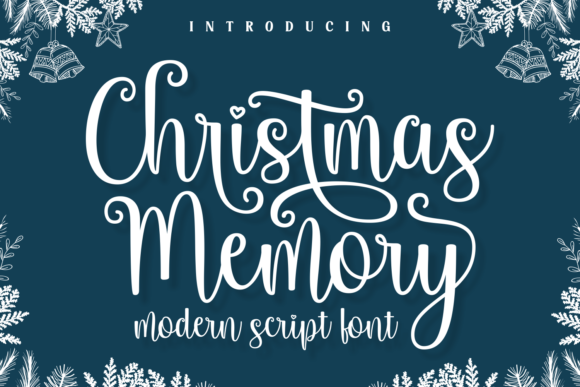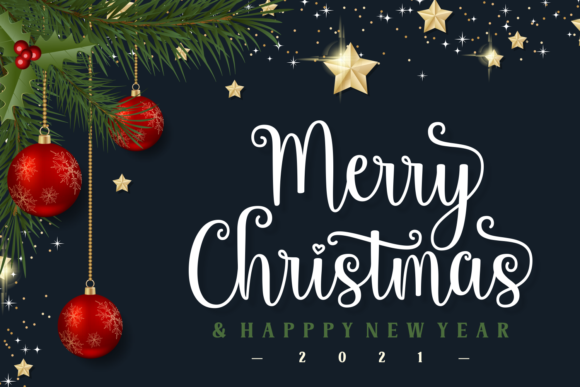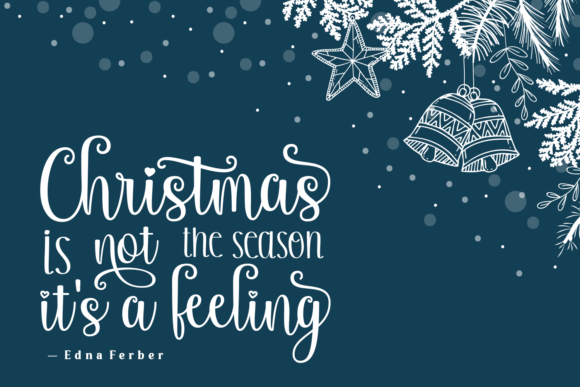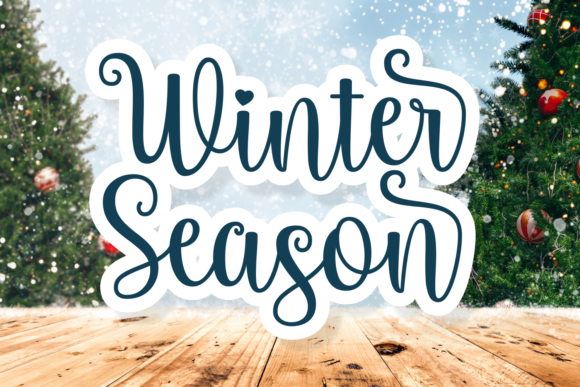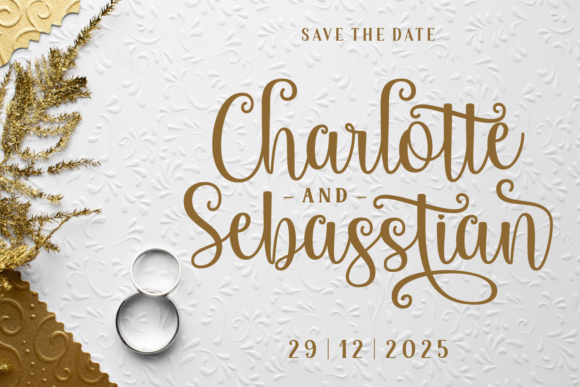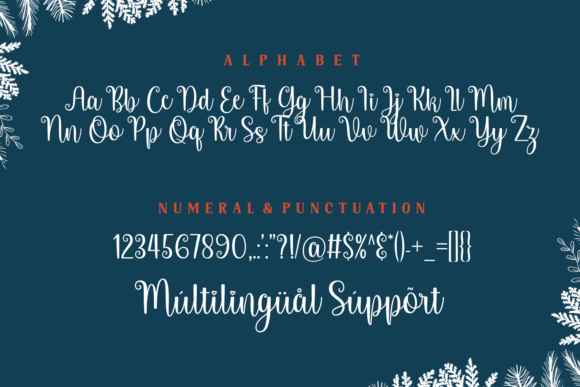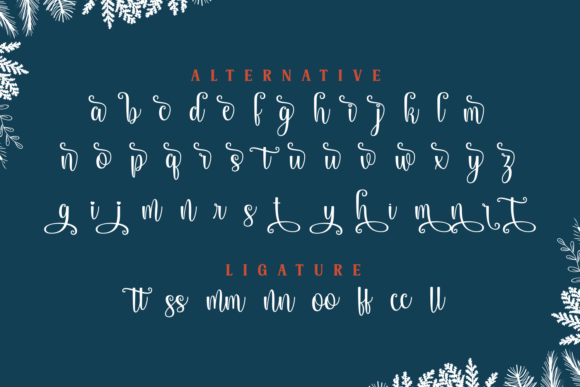
Christmas Memory Font
About Christmas Memory Font
Christmas Memory is an enchanting handwritten font. It will add a luxury spark to any design project that you wish to create! This font is PUA encoded which means you can access all of the amazing glyphs and ligatures with ease!